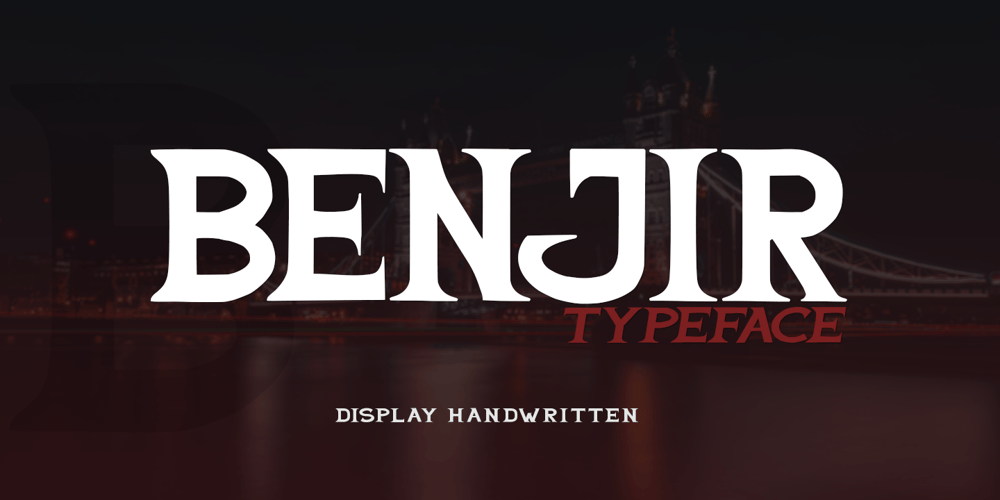
Benjir Font Family was designed by Andri Kurniawan and published by Struggle Studio. Benjir contains 2 styles and family package options. Benjir Typeface – Display Handwritten Font look with simple, Sport, visual elegance with subtle curves and beautiful bindings, An incredibly versatile font that works both large and small. This font is suitable for a wide variety of projects such as: headlines, logos, labels, branding projects, magazines, home appliance designs, product packaging, mugs, quotes, posters and many more.This font can also be more expressive and fun, thanks to the many alternatives and ligatures that combine harmoniously in this font and make it more attractive and versatile. Try to change alternatives, fasteners and you will get many options for your project that will make it Vintage & Awesome.